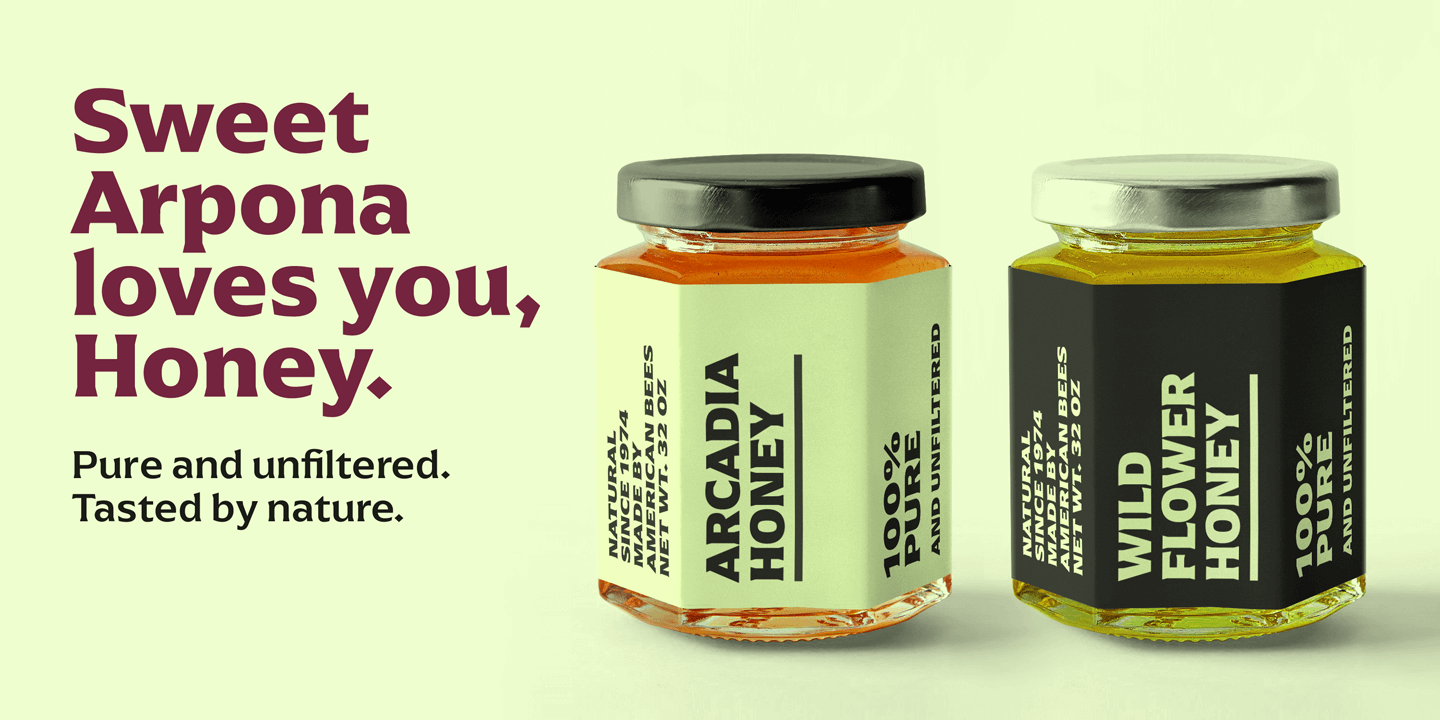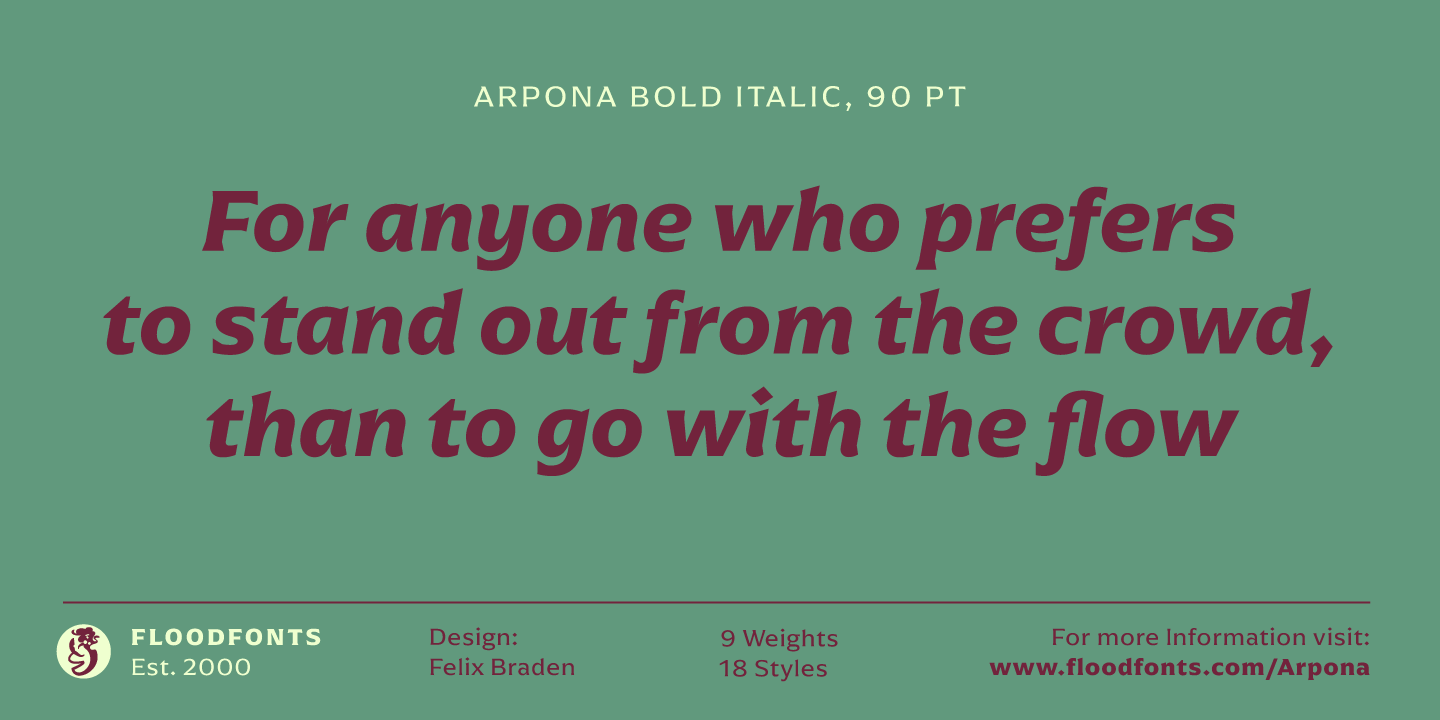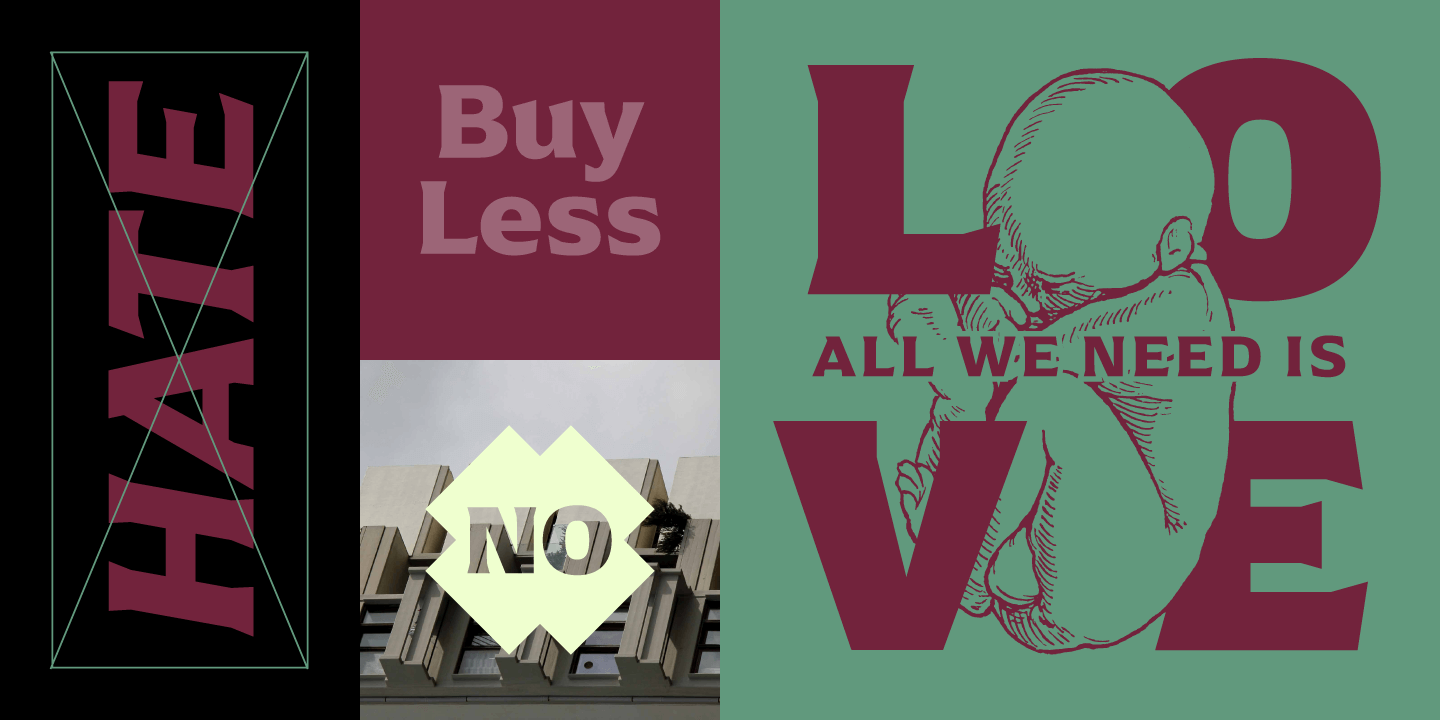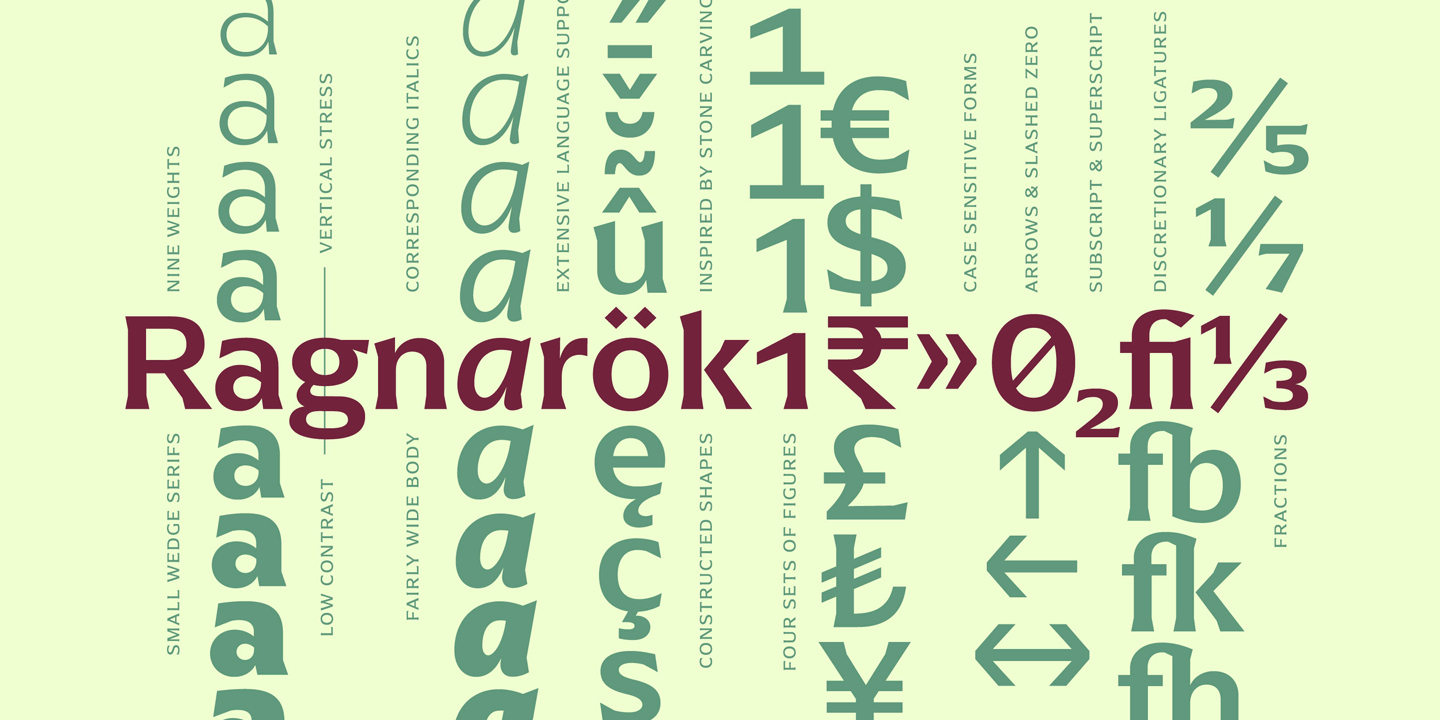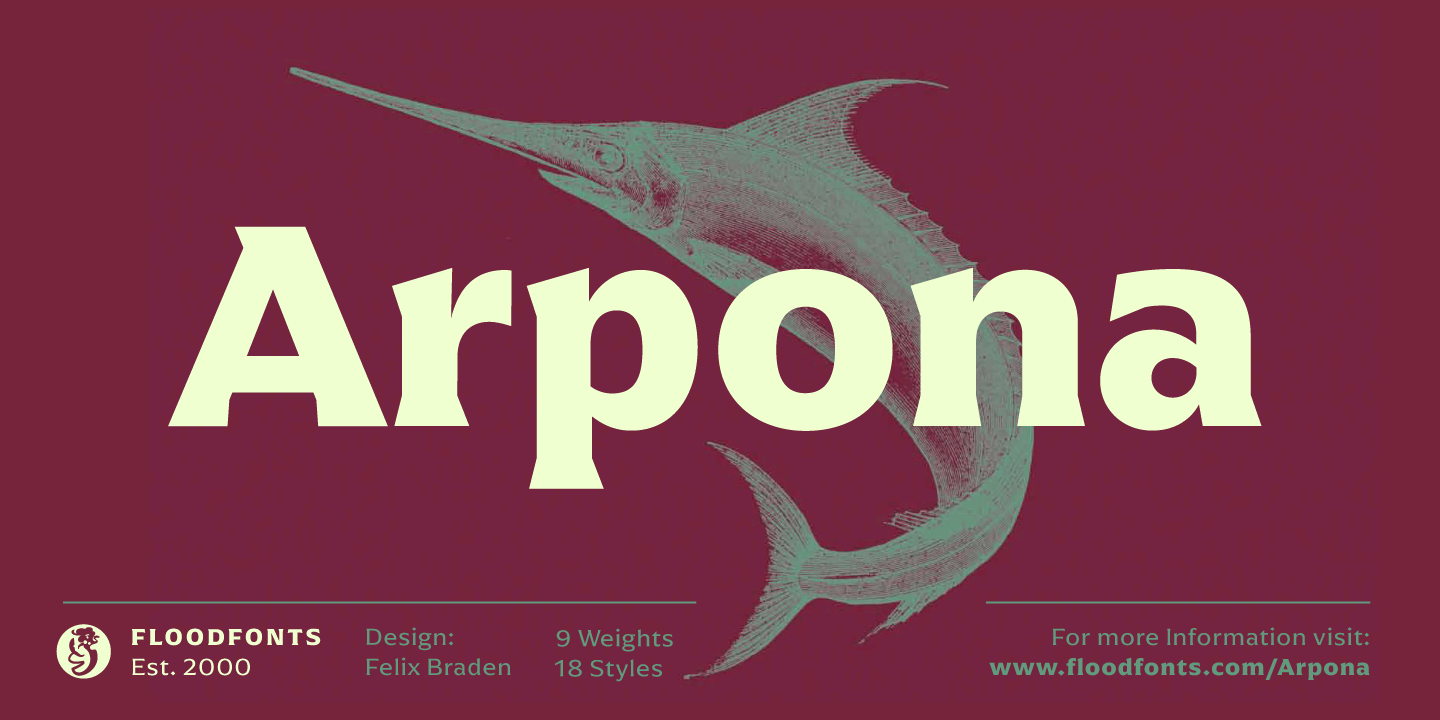
About Arpona
Arpona is a typeface for anyone who prefers to stand out from the crowd, than to go with the flow. A family with small wedge serifs and a strong character, ideal for corporate design and all projects characterized by a sense of individualism – for…